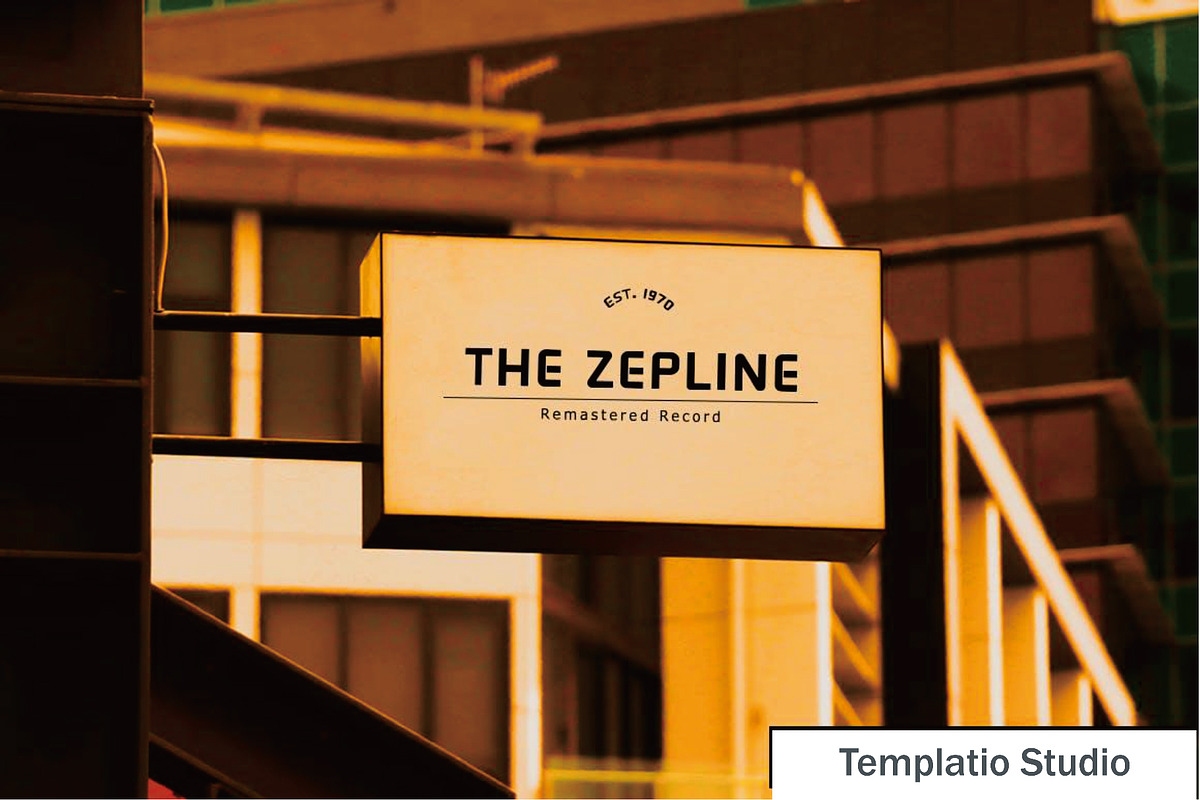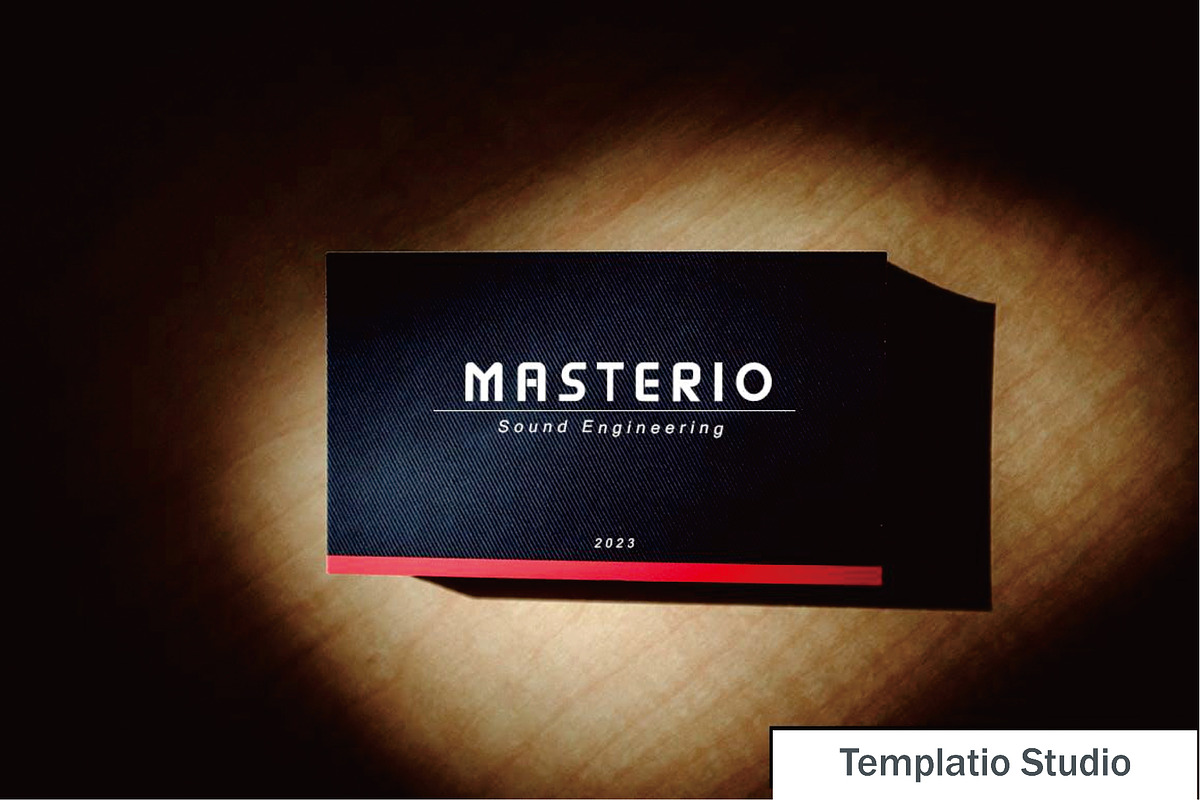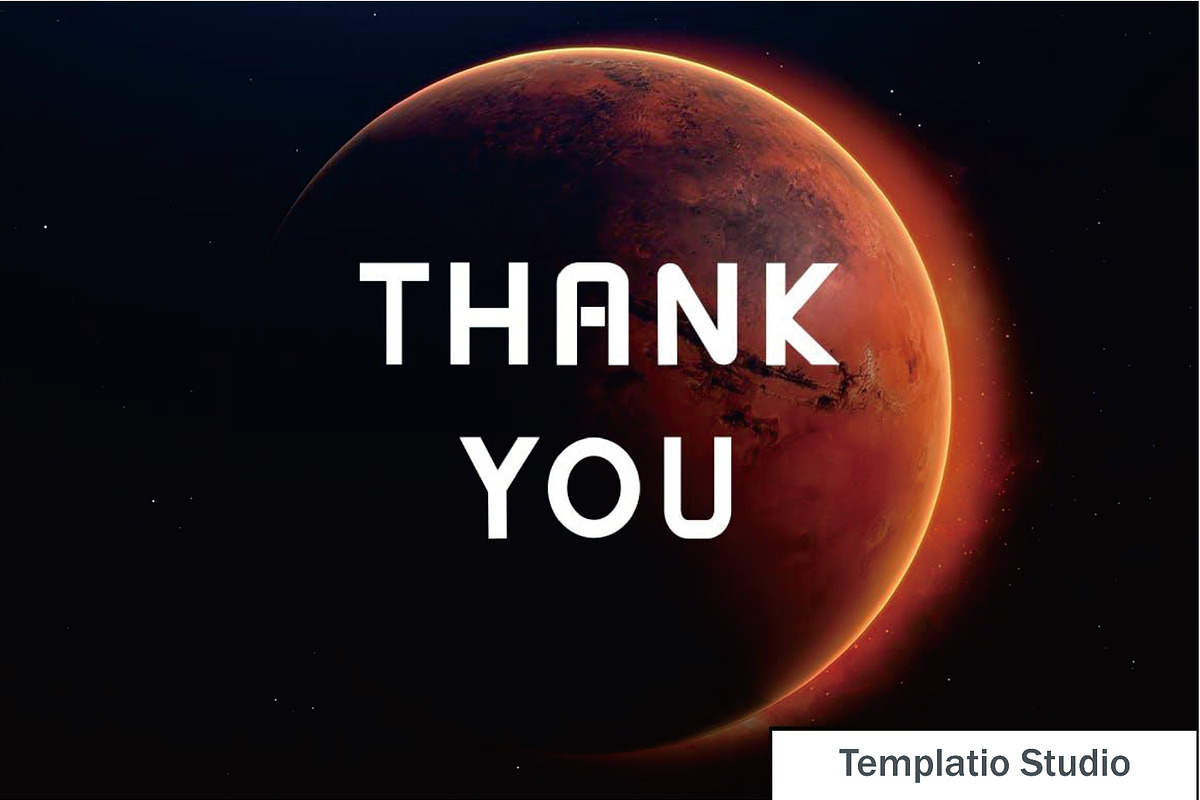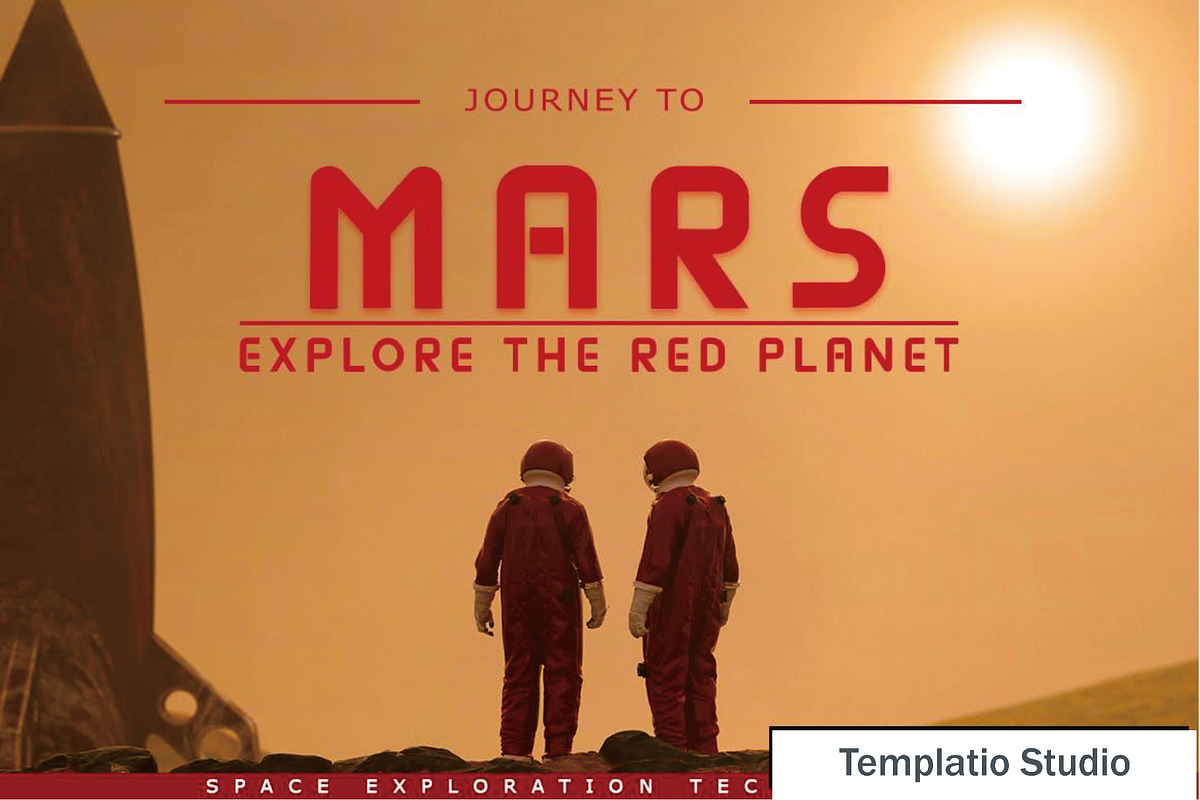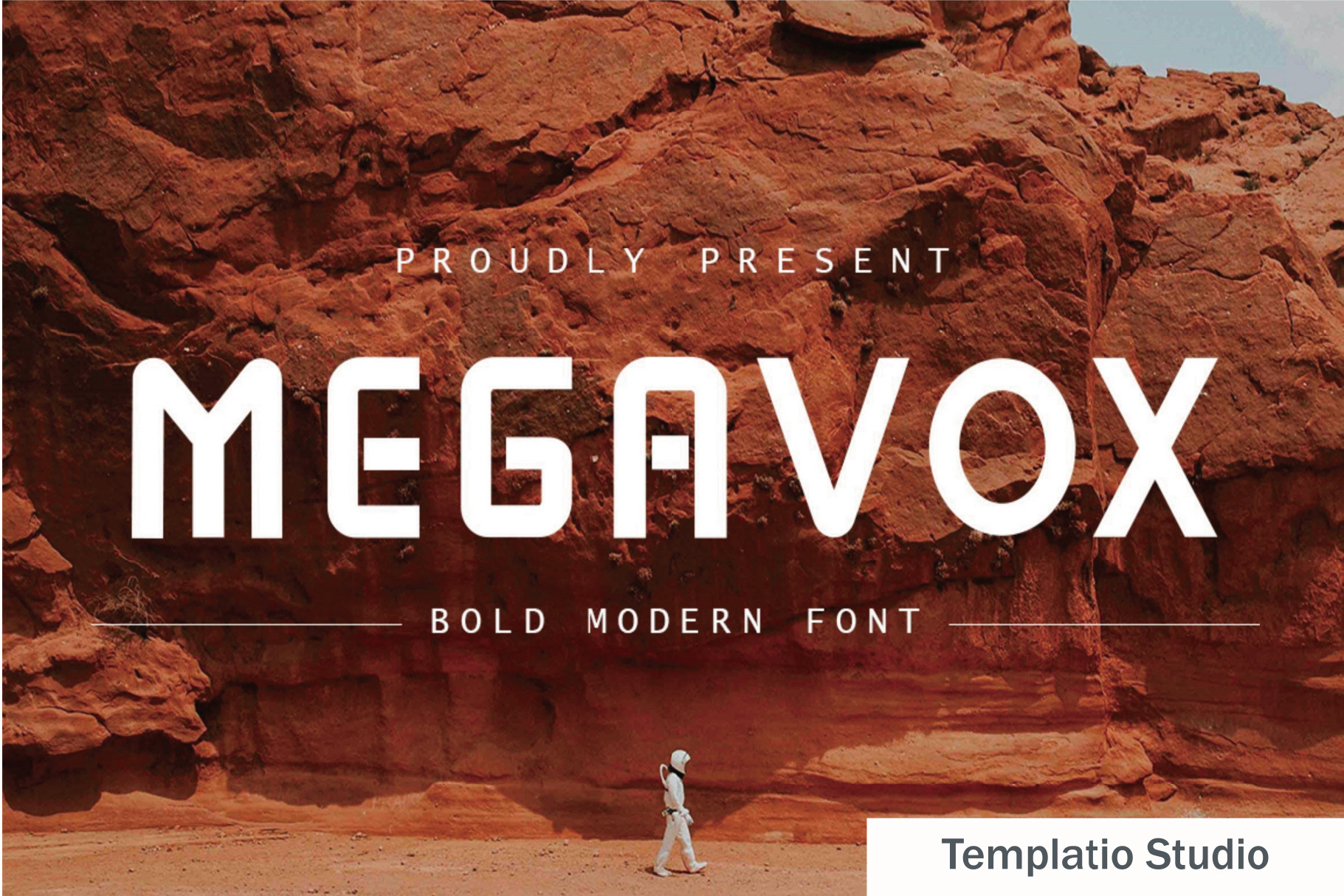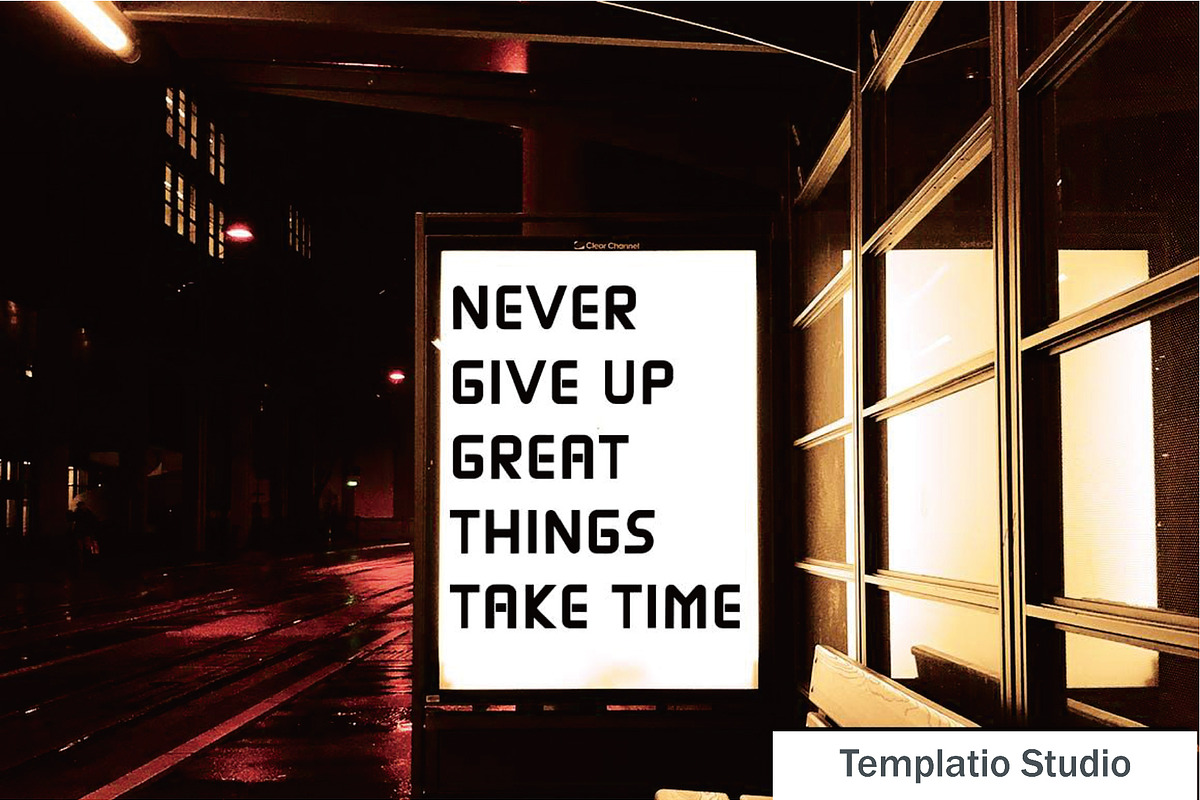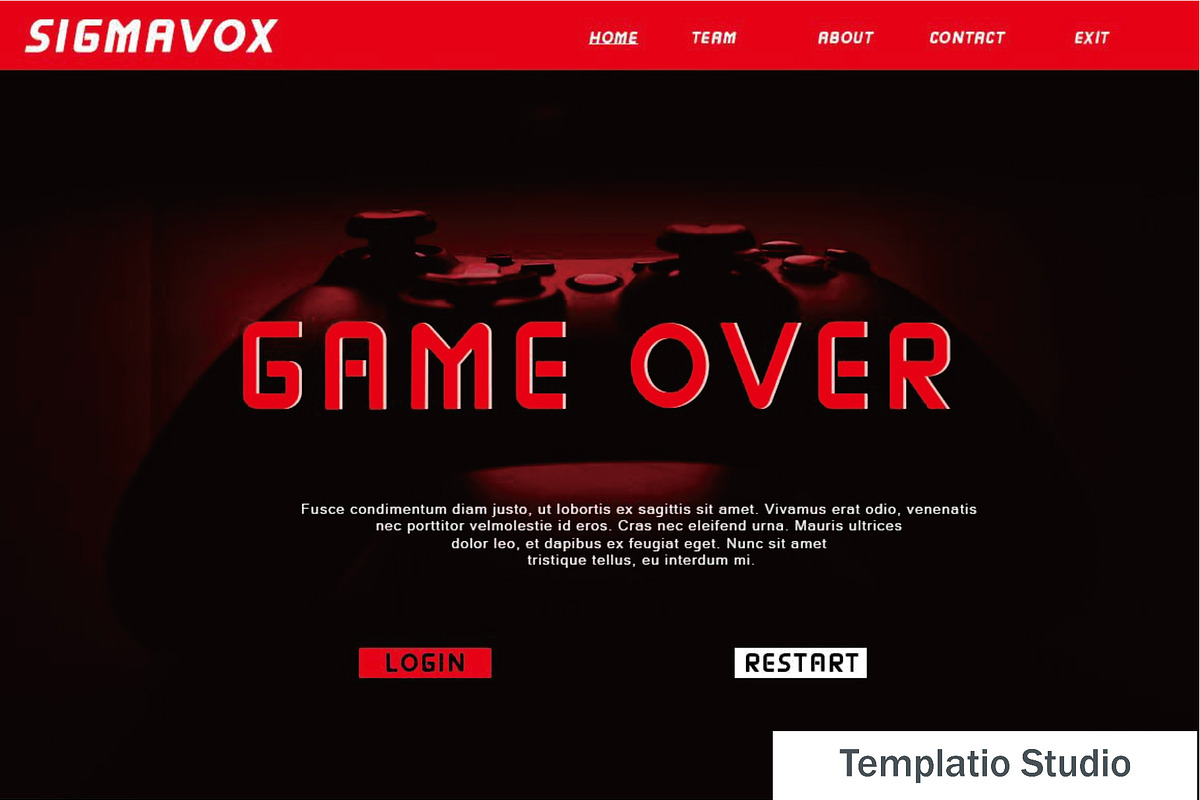
Megavox - Bold Modern Font
Megavox is a sans based font with unique lowercase that will make your design looks futuristic and modern. You can use this font for any purpose, especially to make logotype.